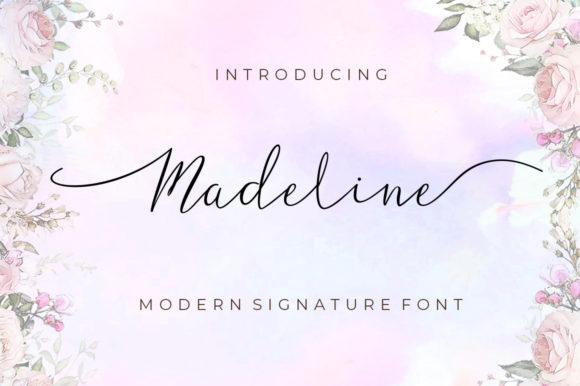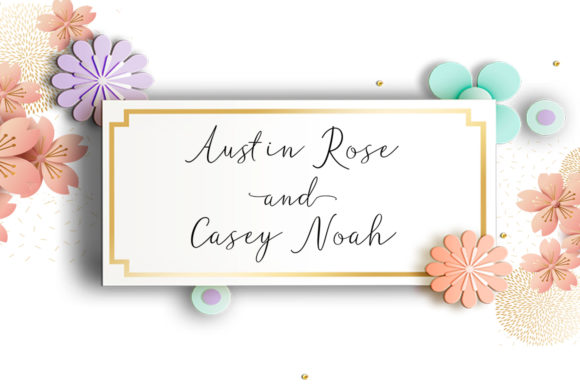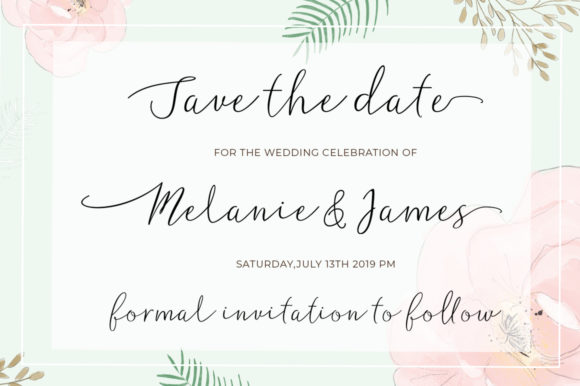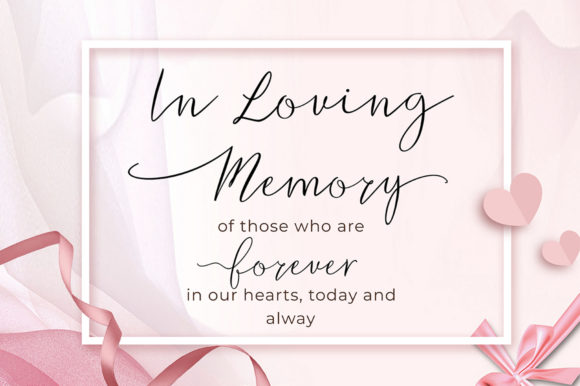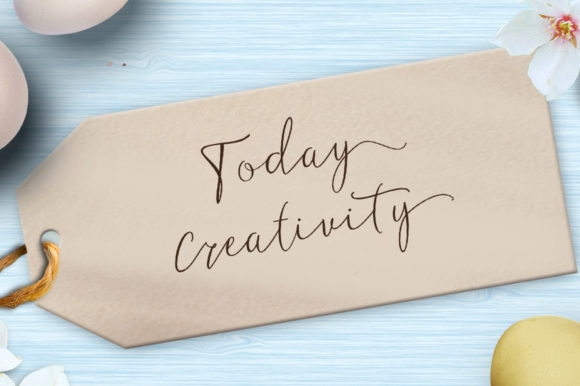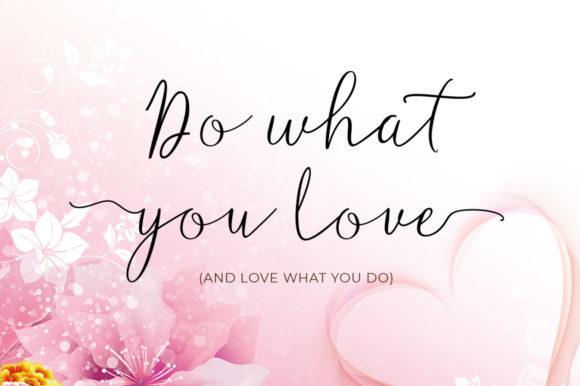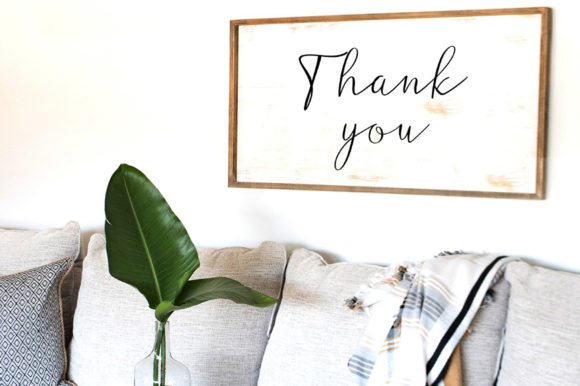
HomeScript FontsMadeline Font Script Fonts Madeline Font FacebookXPinterestWhatsApp Madeline Font Poster 2 Madeline Font Poster 3 Madeline Font Poster 4 Madeline Font Poster 5 Madeline Font Poster 6 Madeline Font Poster 7 About Madeline Font Madeline is an elegant and sweet handwritten font with a beautiful feel. Get inspired by its delicate charm. DOWNLOAD NOW People also explored Bodtwenty Font Miss You Font Kenzie Font Demon Hunter Font Allana Beauty Font Happy Alphabet Font Font Antona Font Rolka Morning Tea Script Font 332 0 TagsMadeline Font Previous articleMiss Rhinetta FontNext articleBestlove Font LEAVE A REPLY Cancel reply Comment: Please enter your comment! Name:* Please enter your name here Email:* You have entered an incorrect email address! Please enter your email address here Website: Save my name, email, and website in this browser for the next time I comment. Personal Use Free Bahjera Personal Use Free Read more about this font Pan Pizza Personal Use Free Read more about this font Lynoselt Personal Use Free Read more about this font Baby Love Personal Use Free Read more about this font BLOG Top 10 Handwritten Fonts That Elevate Your Designs Top 10 Handwritten Fonts That Will Elevate Your Designs Handwritten fonts bring a warm, personal touch to every creative project. Whether you're designing logos, invitations,... Transform Your Website: Elevate Your Typography with 7 Best Web Font Generators Top 7 Google Fonts Alternatives for Faster and Privacy-Friendly Web Design (2025) How to Install and Use Fonts on Windows, macOS, and Web Projects